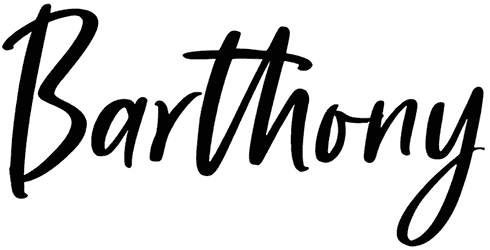
Barthony would be the best game-changer for you to design lovely graphic projects such as business cards, wedding invitations, stationery, book covers, or magazines, and easily impress the audience with the unbelievable quality of your work.
Since this script font comes with angular and crooked characters, it carries a feeling of personalization, precision, softness, or momentum. Just in case you require another handwritten font the same as this one, don’t hesitate to visit our archive.